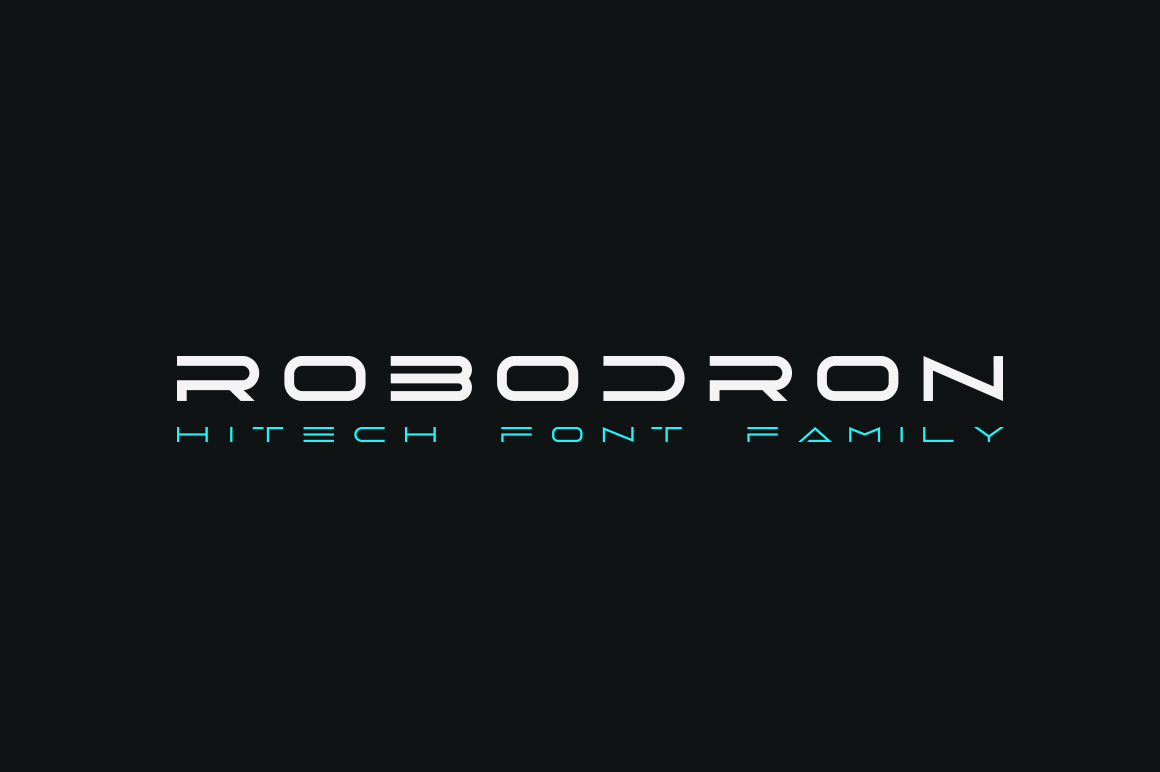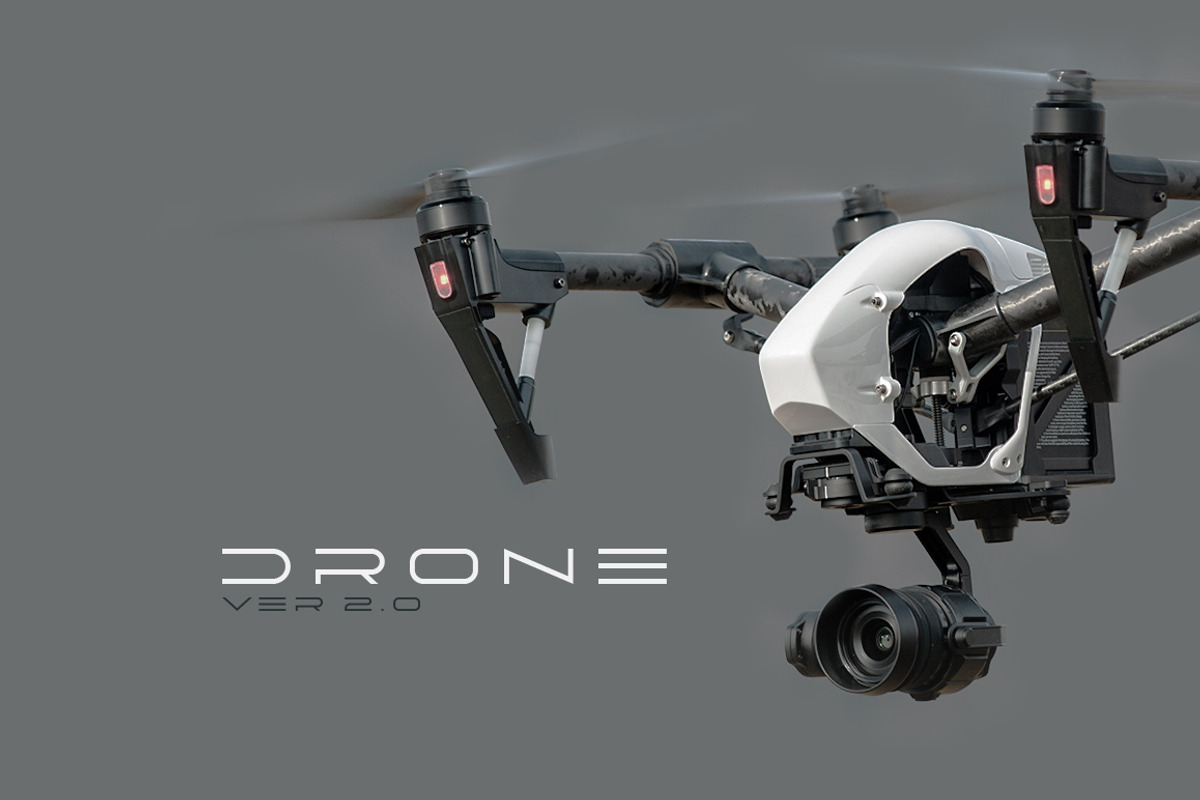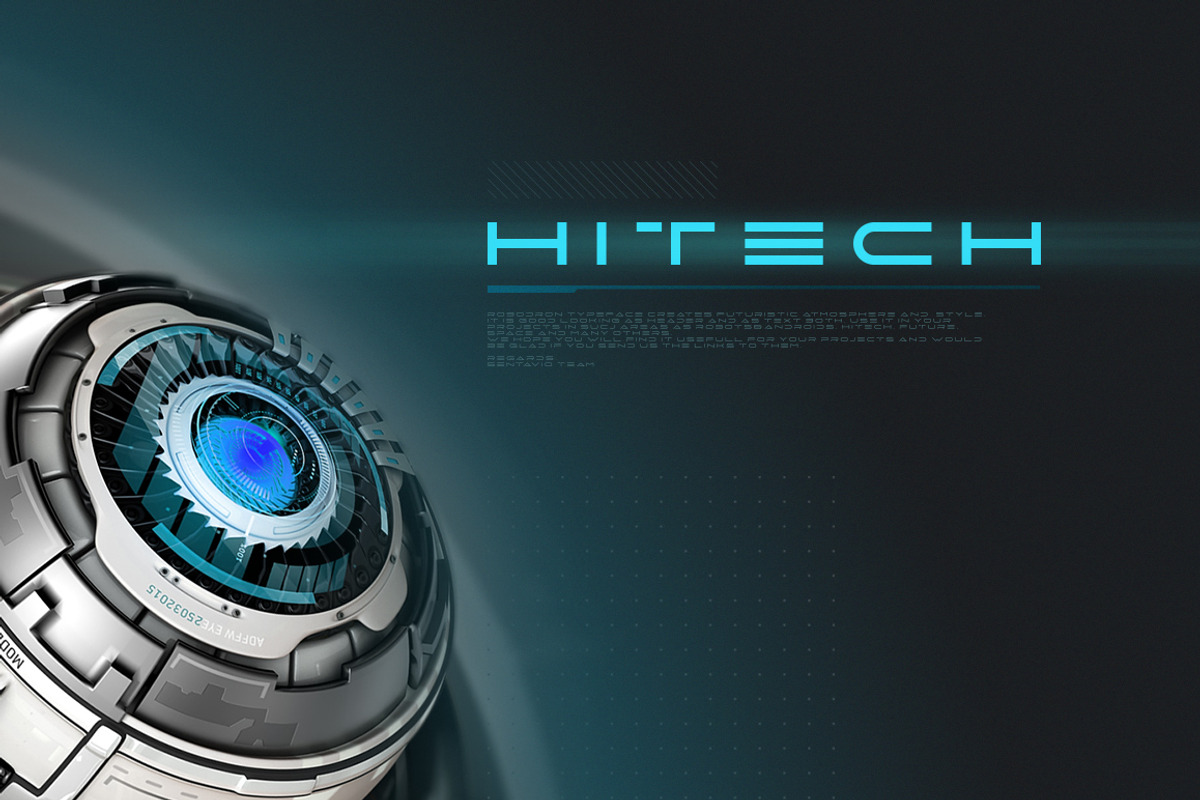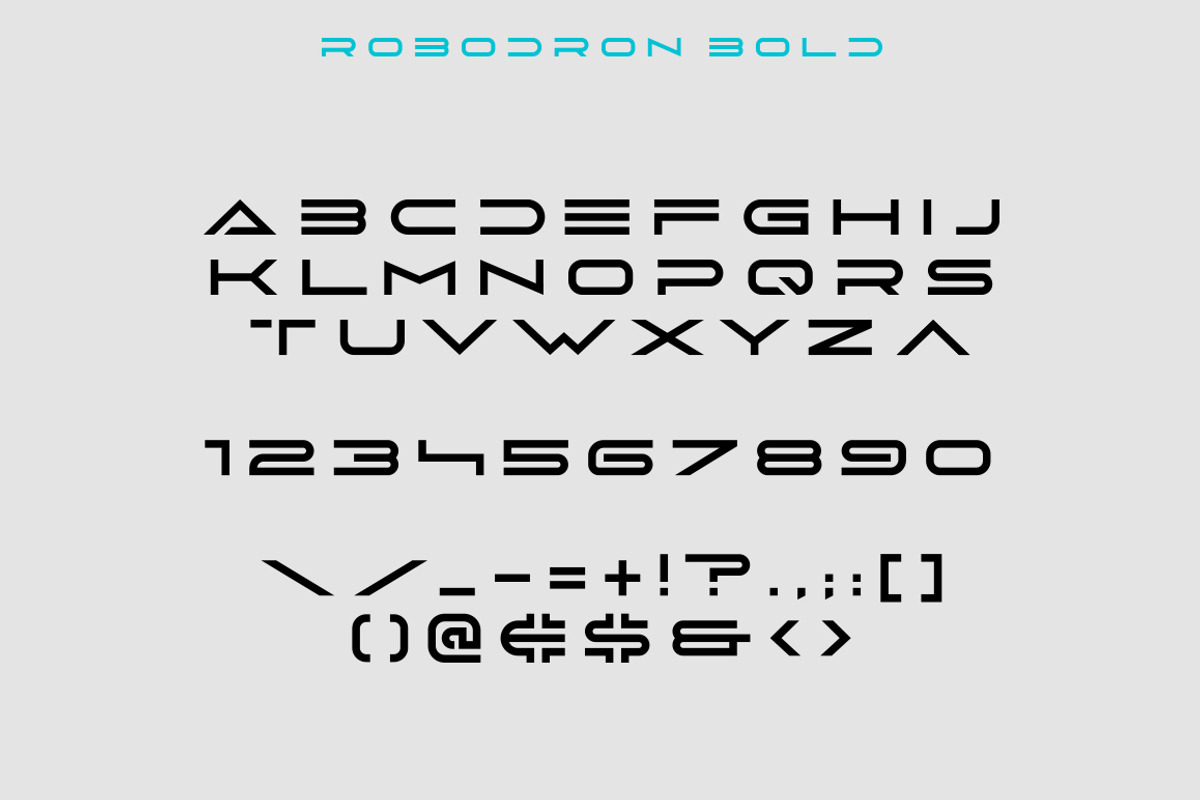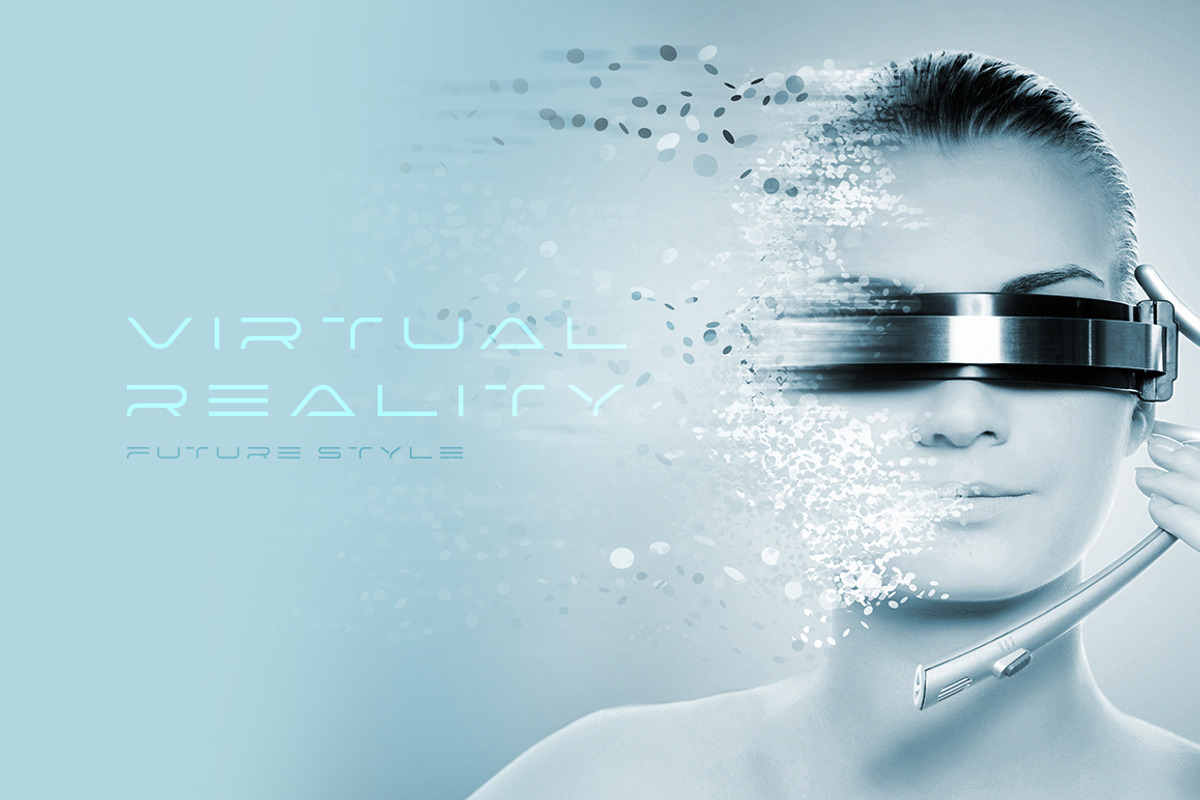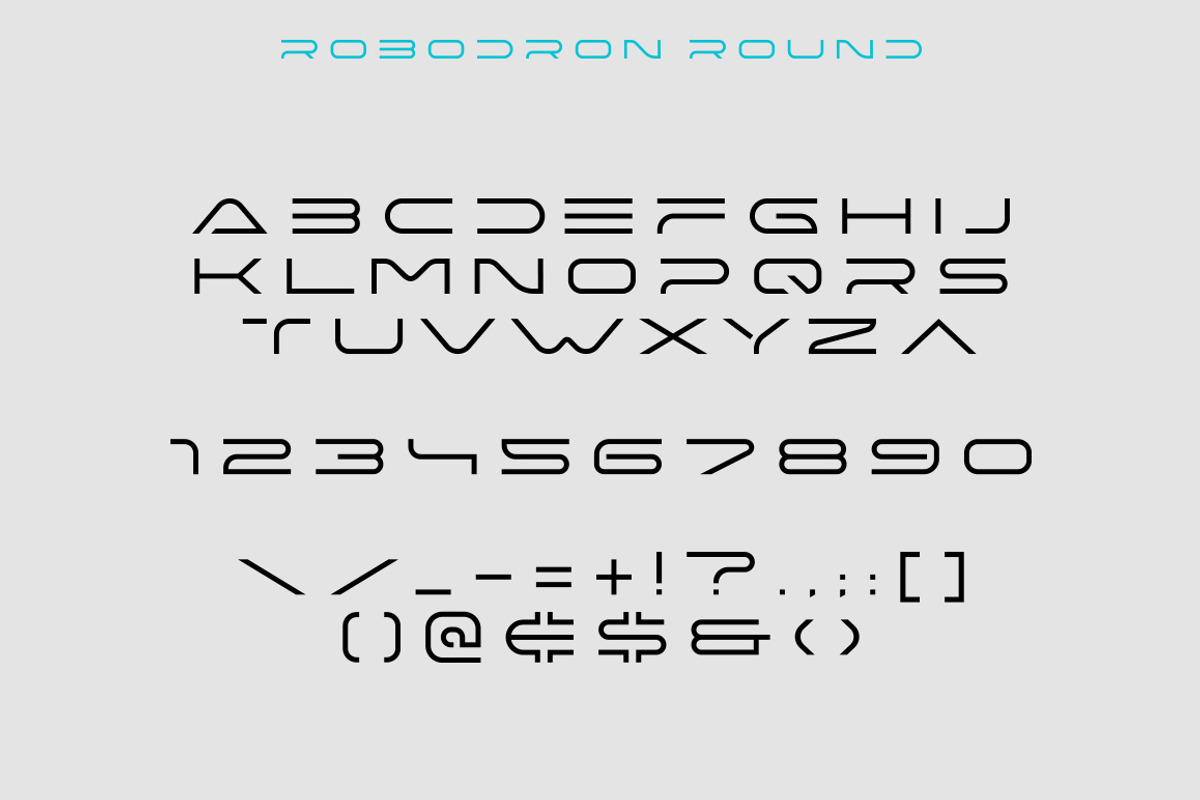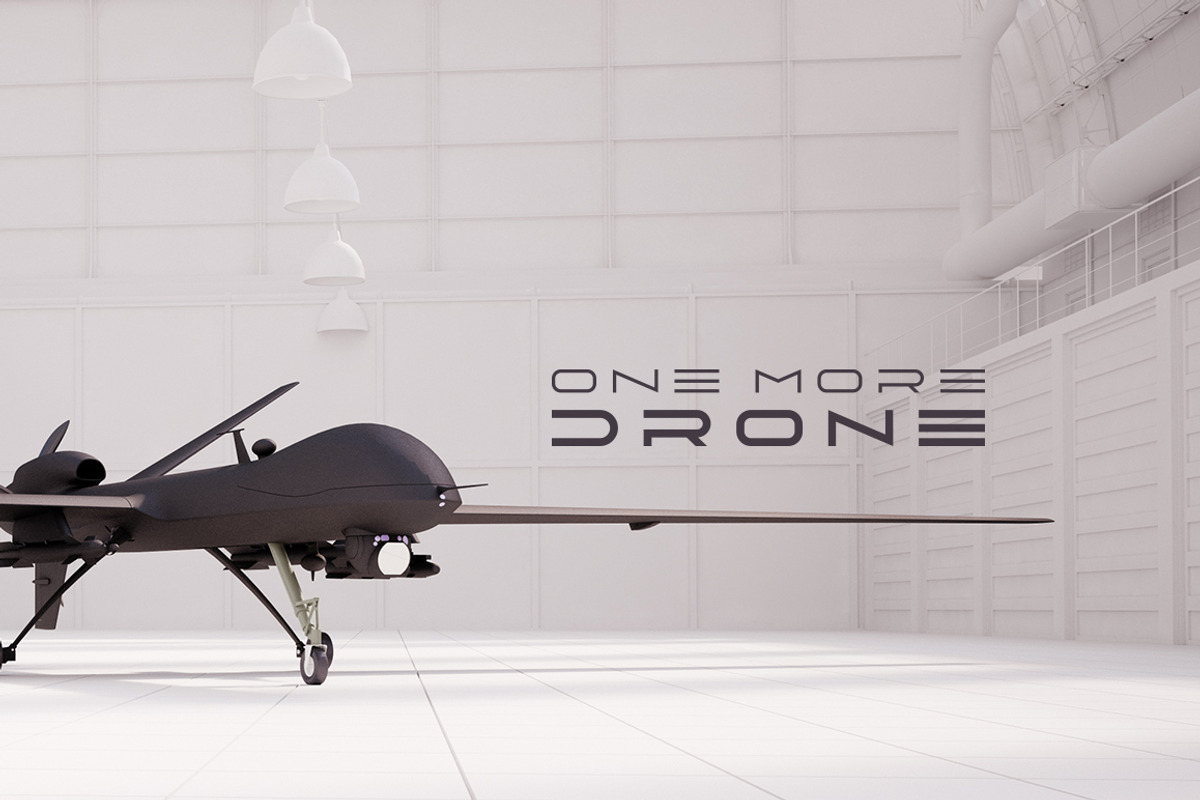
Robodron font
Robodron is font which helping to create futuristic hi-tech atmosphere and style. It is good looking as header and as text both. Use it in your projects in such areas as robots&androids, hi-tech, future, virtual reality, space and many others.
It consists of three types:
- Bold
- Rounded